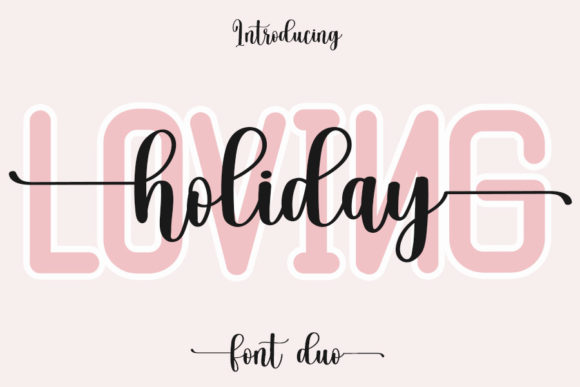
Embark on a journey of creative expression with Loving Holiday Font, a captivating script font family designed to bring joy and charm to your digital creations.
Loving Holiday's graceful lines dance across the page, inviting you to craft messages that resonate with warmth and elegance. Whether you're designing wedding invitations, creating captivating social media posts, or adding a personal touch to your branding, this font family is your perfect companion.
Crafted with precision and attention to detail, Loving Holiday captures the essence of handwritten calligraphy, lending an authentic and heartfelt touch to your designs. Its swashes and glyphs add a touch of whimsy and delight, making every word you write a work of art.
With Loving Holiday, you can effortlessly transform your ideas into stunning visual masterpieces. Its versatility knows no bounds, allowing you to create designs that exude sophistication, playfulness, or anything in between. Let your creativity soar and explore the endless possibilities that await you with this remarkable font family.
As a PUA encoded font, Loving Holiday grants you the freedom to access all its glyphs and swashes with remarkable ease. Unleash your imagination and incorporate intricate details and flourishes into your designs, elevating them to new heights of beauty and sophistication.
Don't settle for ordinary fonts that blend into the background. Choose Loving Holiday and let your designs shine with individuality and charm. Embrace the spirit of creativity and make a lasting impression on your audience with every word you write.